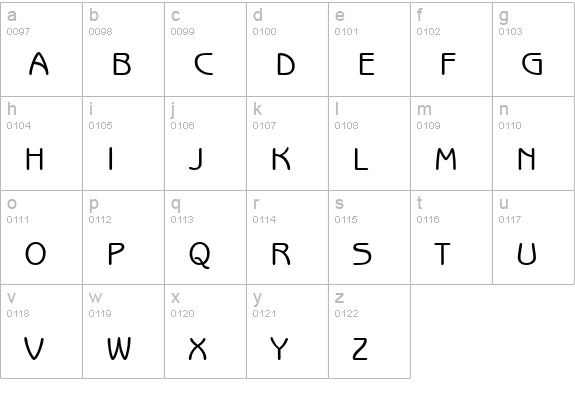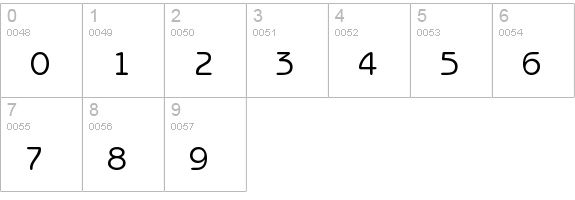
B691-Sans-Smc-Regular is the standard, neutral variant in the B691 typeface family \xE2\x80\x94 well suited to general body text, paragraphs, and standard typographic work.
B691 Sans SMC Regular is a versatile and modern font that exudes sophistication and professionalism. With its clean lines and sleek design, this font is perfect for a wide range of projects, from branding and marketing materials to website design and print materials. Its balanced proportions and legibility make it an ideal choice for both headings and body text. What sets B691 Sans SMC Regular apart is that it is available for free download at FontsMarket.com. This means that you can easily access this high-quality font without any cost, making it a valuable addition to your design toolkit. Whether you are a seasoned designer or just starting out, B691 Sans SMC Regular is sure to elevate your projects and give them a polished and modern look. Download this font today and take your design work to the next level!